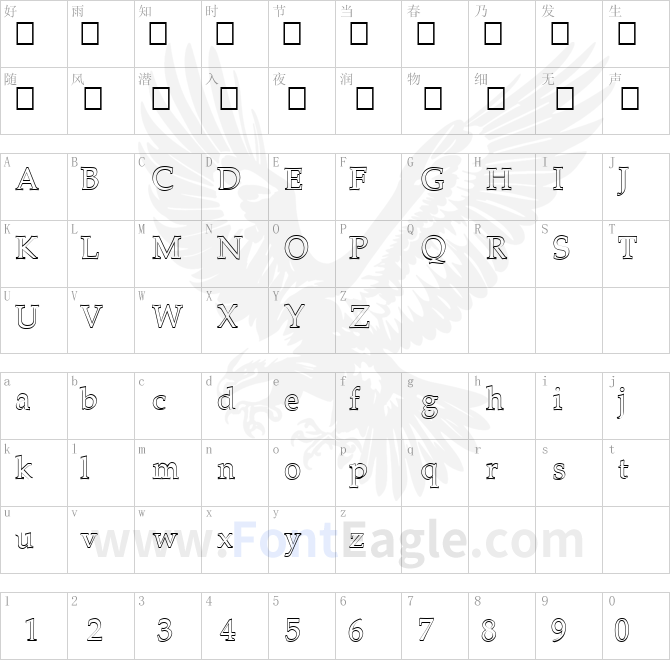
FZ-ROMAN-21-HOLLOW is a great font, widely used in graphic design, single-page menu design, poster design and other fields, and is deeply loved by designers.FZ-ROMAN-21-HOLLOW download.